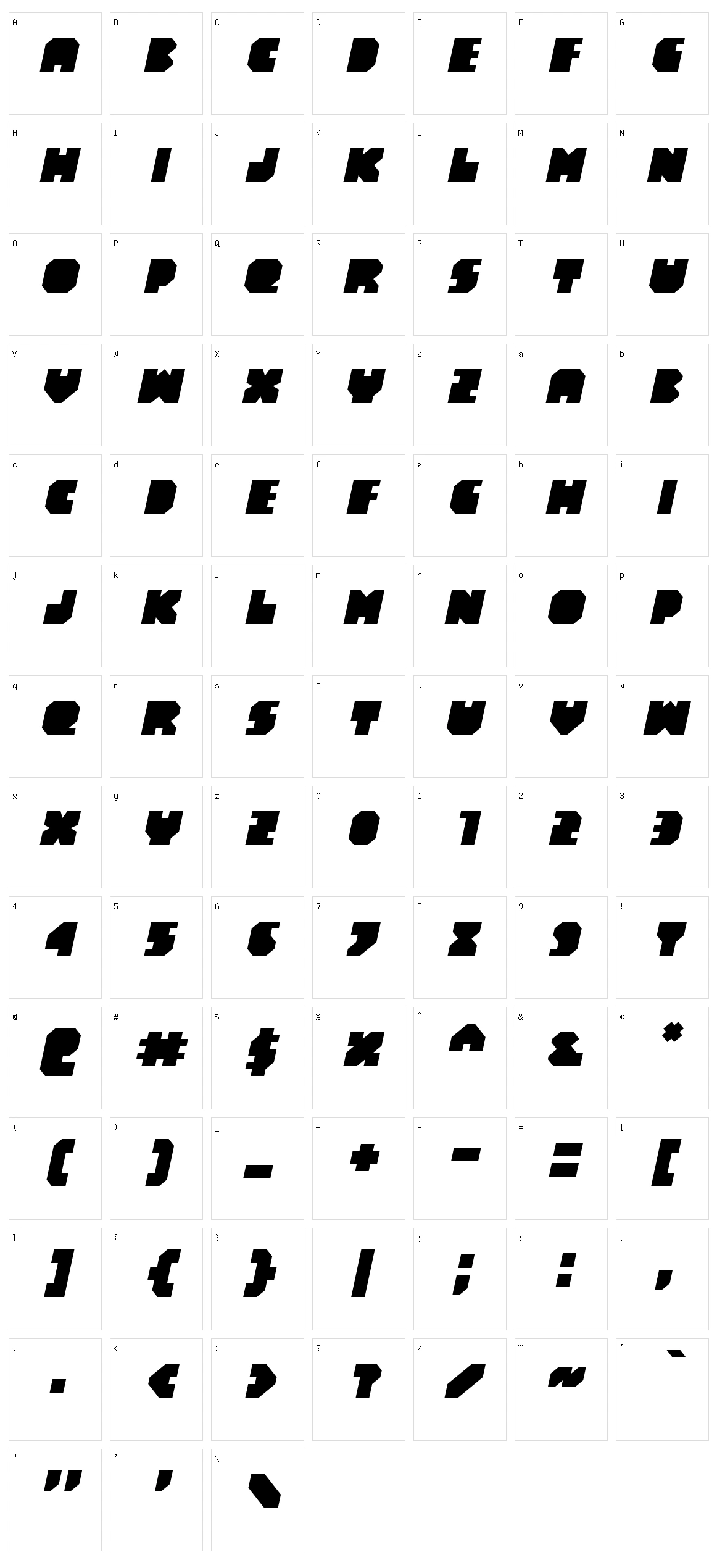
The free font Blaec is carefully designed by GGBotNet, showcasing a thoughtful balance of creativity and usability and falls under the Square font style. When you download the ZIP file, it contains only 57.08 KB of font files, making it lightweight and quick to download. Please review the license details below to understand permitted usage and distribution rights. If license information is not available, we recommend using this font for personal projects only or contacting the author directly for commercial usage permissions.